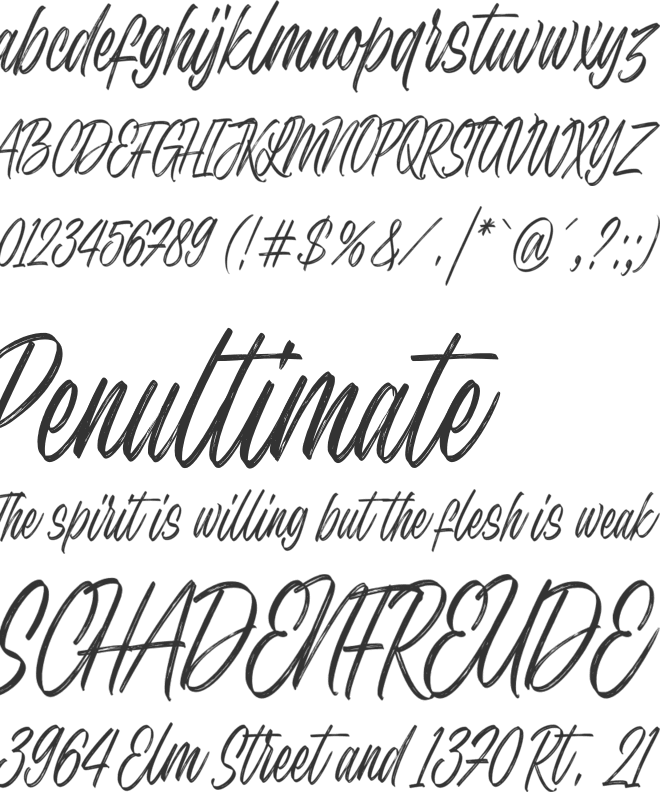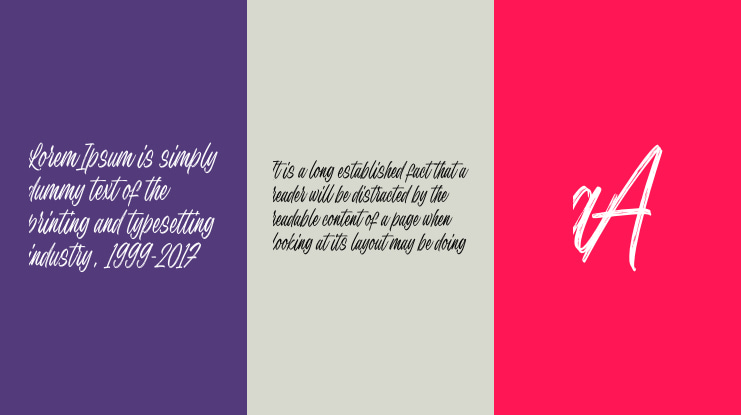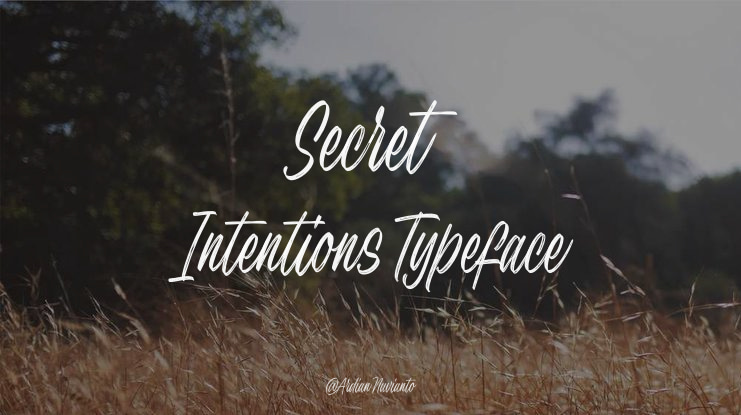
Secret Intentions Font
Secret Intentions is a stylish and expressive handwritten brush font that captures the raw beauty of hand-drawn lettering. With its sweeping strokes and organic texture, this font exudes emotion, personality, and authenticity.